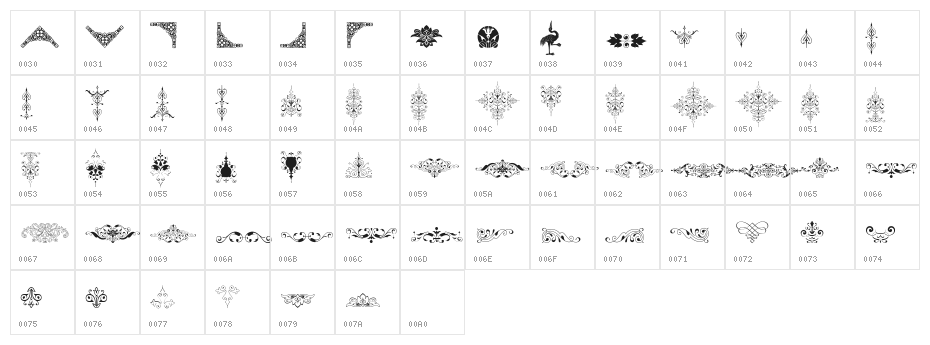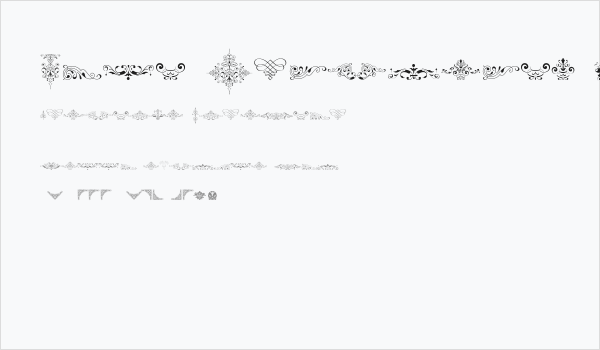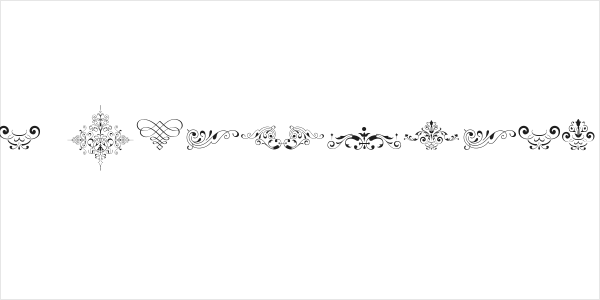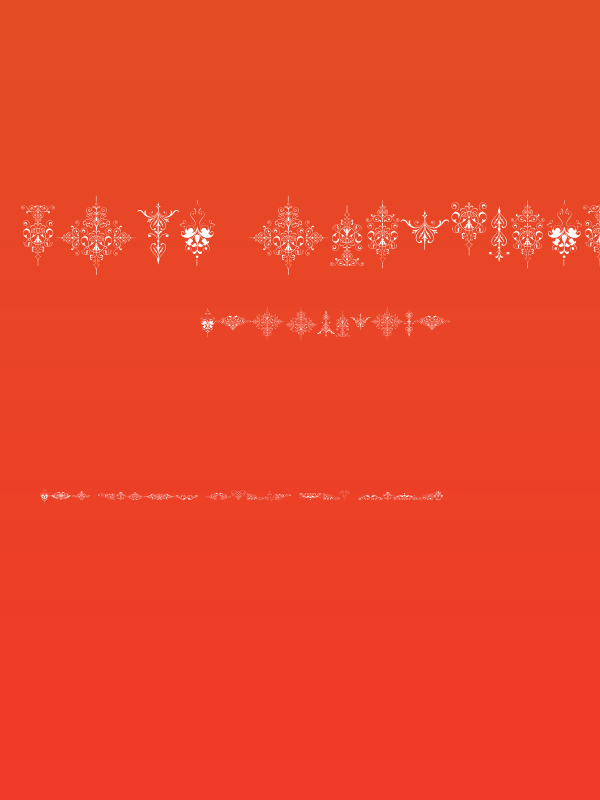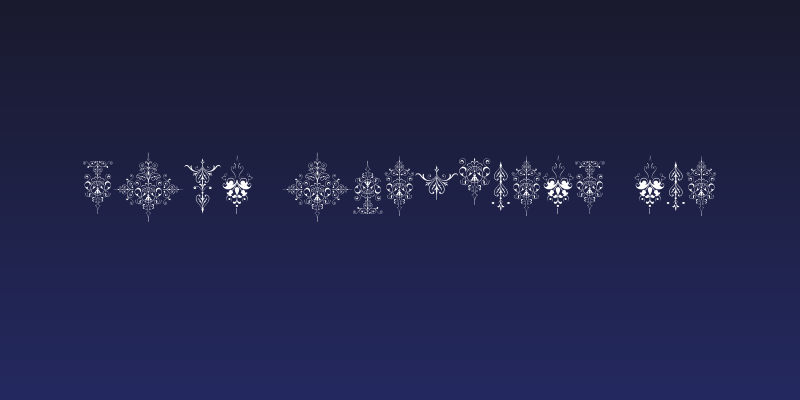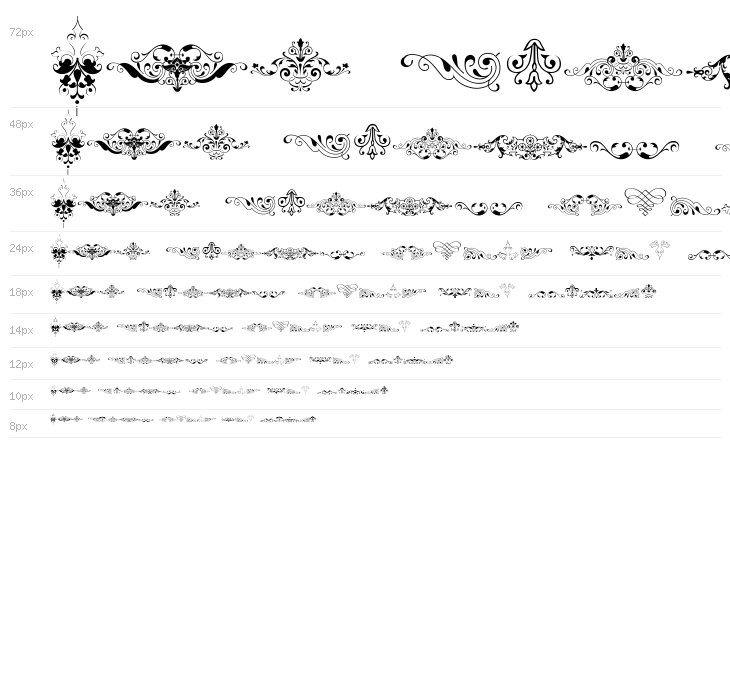
Soft Ornaments Ten Font
Soft Ornaments Ten Description
A collection of highly decorative, intricate ornamental glyphs with flourishes, swashes, and symmetrical motifs, evoking a vintage or classical aesthetic. The designs range from corner embellishments to horizontal dividers and standalone icons, featuring both bold and delicate linework.
| Overall Style | Vintage, Decorative, Ornamental |
| Use Case | Borders, dividers, embellishments, logos, invitations |
| Proposed Projects | Wedding invitations, certificates, book covers, decorative borders, vintage branding, event programs. |